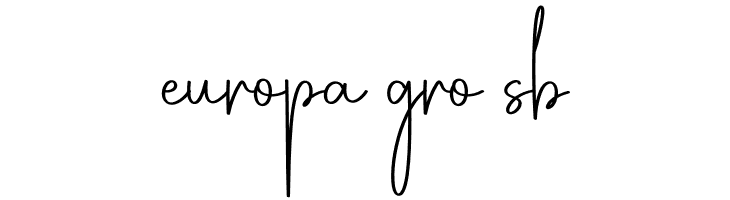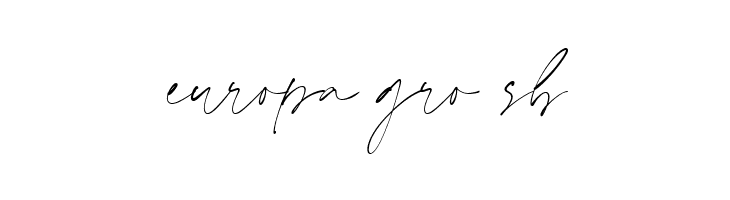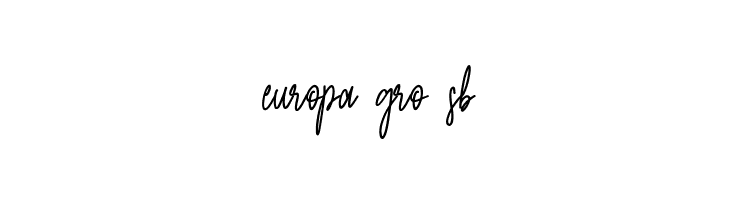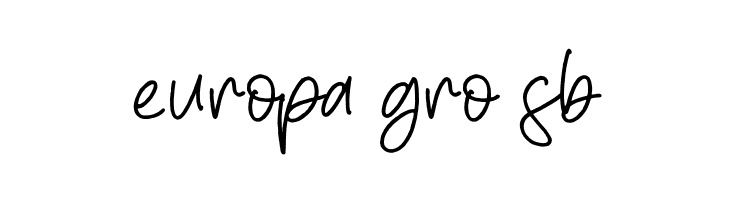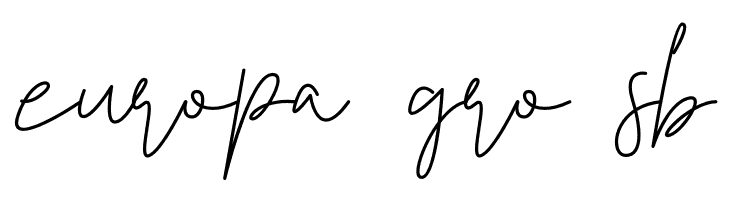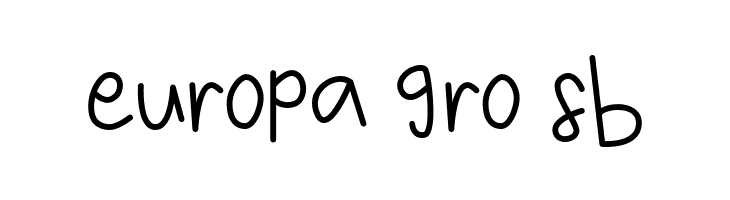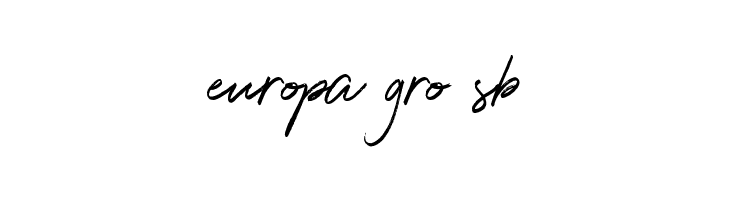
Handwritten script with smooth, connected strokes and a casual, elegant vibe.
Tall, thin handwritten script with playful, casual style.
A delicate, handwritten script with elegant, flowing lines.
Expressive handwritten script with tall, narrow letters and fluid connections.
Casual, playful handwritten font with whimsical details.
Casual, handwritten script with tall, thin, flowing letters.
Casual handwritten font with tall, rounded letters and playful style.
Casual handwritten font with playful, irregular strokes.
A lively handwritten script with a casual, flowing style.
Handwritten cursive script with elegant, fluid strokes.